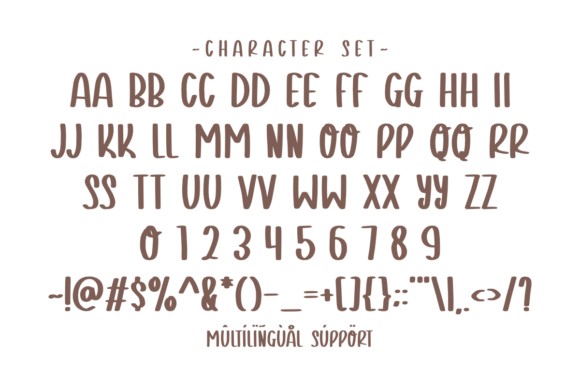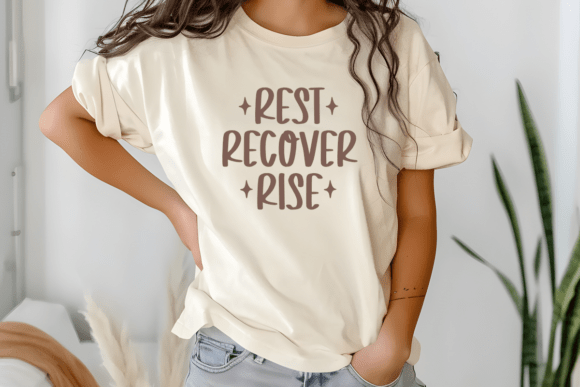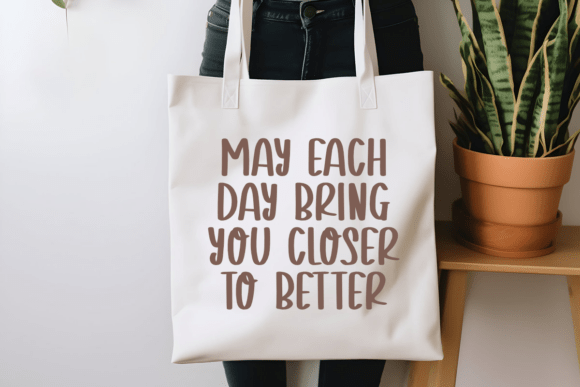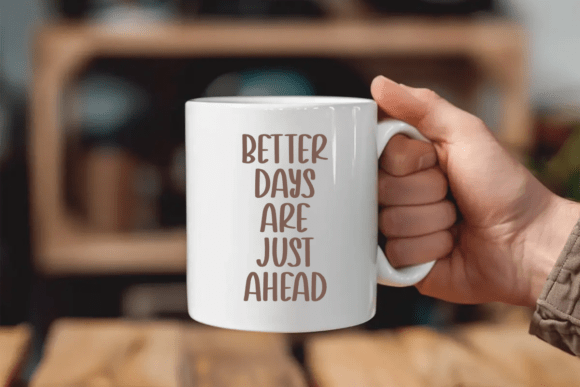
Introduction to Recover Quickly Font
Have you ever found yourself in a moment of creative block, staring at a blank canvas or screen, desperately searching for that perfect design element to bring your vision to life? For designers, this is a familiar feeling. But what if I told you that there’s a secret to unlocking your full creative potential? Enter the Recover Quickly Font, a stunning handwritten typeface that’s about to revolutionize the way you approach your next design project.
As a valuable addition to any design resource, Recover Quickly Font boasts a beautifully bold and captivating aesthetic that’s sure to elevate the visual appeal of your work. With its high-quality design and transparent background, this versatile font is the perfect companion for any creative project. And the best part? It’s available for free download, making it an invaluable resource for designers of all levels.
Key Features of Recover Quickly Font
- High-quality design resource with a unique, modern aesthetic suitable for creative projects.
- Features a clean and minimalist design, perfect for use in logos, branding materials, and digital products.
- Includes a comprehensive character set, making it suitable for use in various languages and creative projects.
Honest Review: Recover Quickly Font
As a designer, I’m always on the lookout for high-quality design resources to elevate my creative projects. The Recover Quickly Font caught my attention, and I decided to put it to the test.
Here are the highlights:
- ✨ Unique and modern design that stands out from the crowd
- ✨ Excellent legibility and readability, making it perfect for body text
- ✨ Includes a transparent background, allowing for seamless integration with any design
While the Recover Quickly Font has its strengths, there are some limitations to consider:
- ⚠️ Limited font weights and styles available, which may limit its versatility
- ⚠️ Not ideal for large-scale typography or headings
Overall, I’m impressed with the Recover Quickly Font. It’s a solid addition to any designer’s toolkit, and the free download is a definite bonus. If you’re looking for a modern, high-quality font for your creative project, I’d definitely recommend giving it a try.
Recover Quickly Font
The Recover Quickly Font is a versatile design resource ideal for creative projects. With its high-quality and modern design, this font is perfect for adding a touch of sophistication to your work.
For the best results, use the Recover Quickly Font on a transparent background to make it stand out.
Also, experiment with different font sizes and styles to add visual interest to your design.
The Recover Quickly Font is perfect for:
Headings and titles
Body text
Logos and branding
Marketing materials
Rebound Font
Rebound Font is a free download that offers a fun and energetic design, perfect for creative projects that require a playful touch. It features a transparent background and is ideal for use in social media graphics or marketing materials.
When to use: Rebound Font is suitable for projects that require a fun and engaging tone, such as a social media campaign or a promotional video.
Can I use Recover Quickly Font with a transparent background?
Yes, Recover Quickly Font has a transparent background, making it perfect for use on images or videos with complex backgrounds. The font’s transparent background allows it to blend seamlessly with the surrounding design elements.